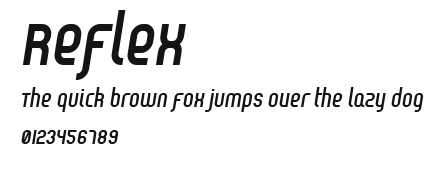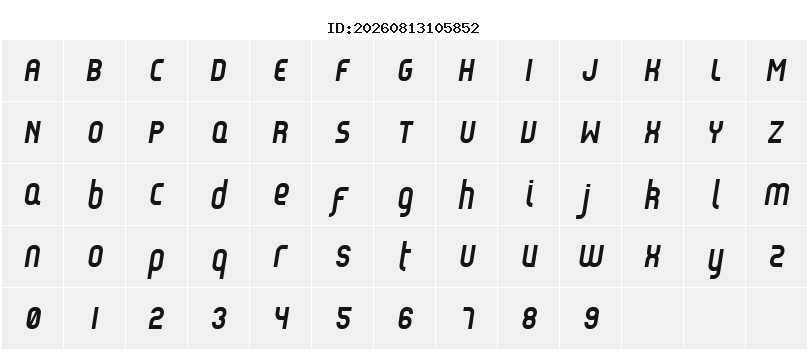
• Font Name: Reflex
• Font Style: ItalicBold
• Full Font Name: Reflex Bold Italic
• PostScript Name: Reflex-BoldItalic
• Character Count: 231
• Manufacturer: Alejandro Paul for Typeworx
About Reflex.ttf
Reflex.ttf is a modern, elegant sans-serif font designed for ultimate readability and visual harmony. Perfect for branding, headlines, web design, and print materials.